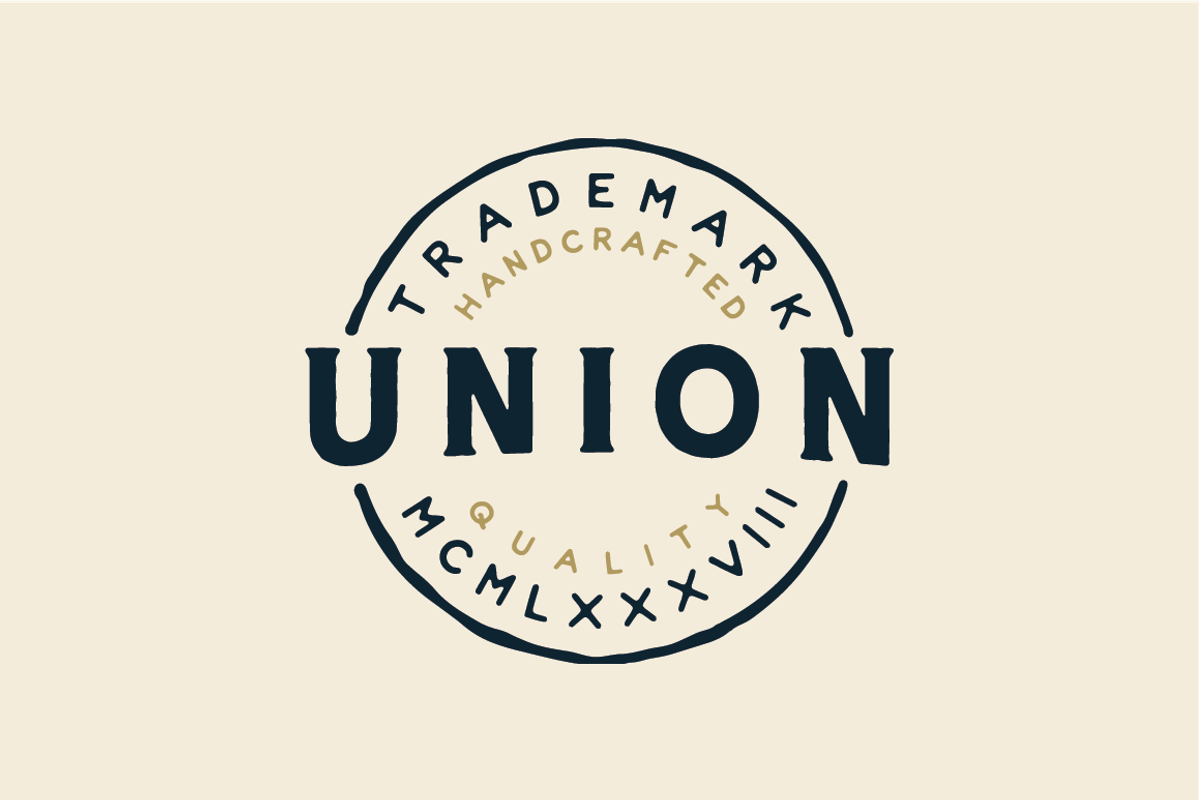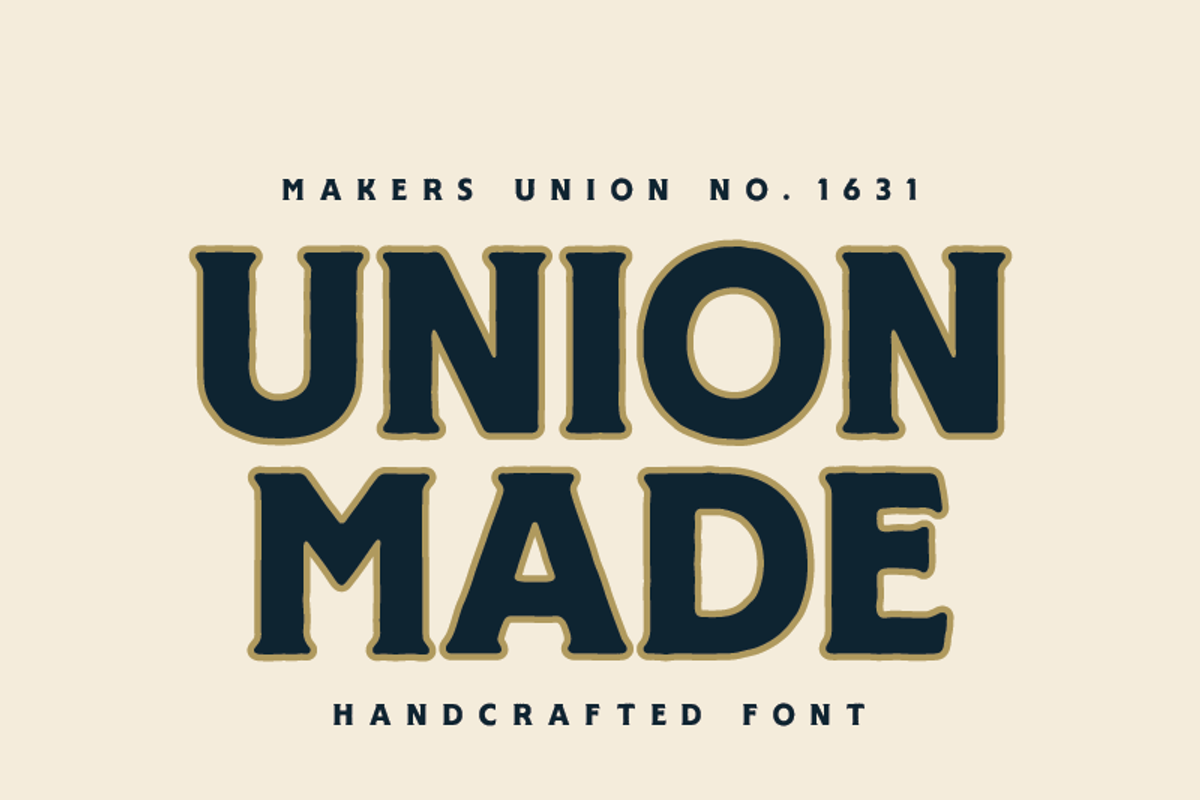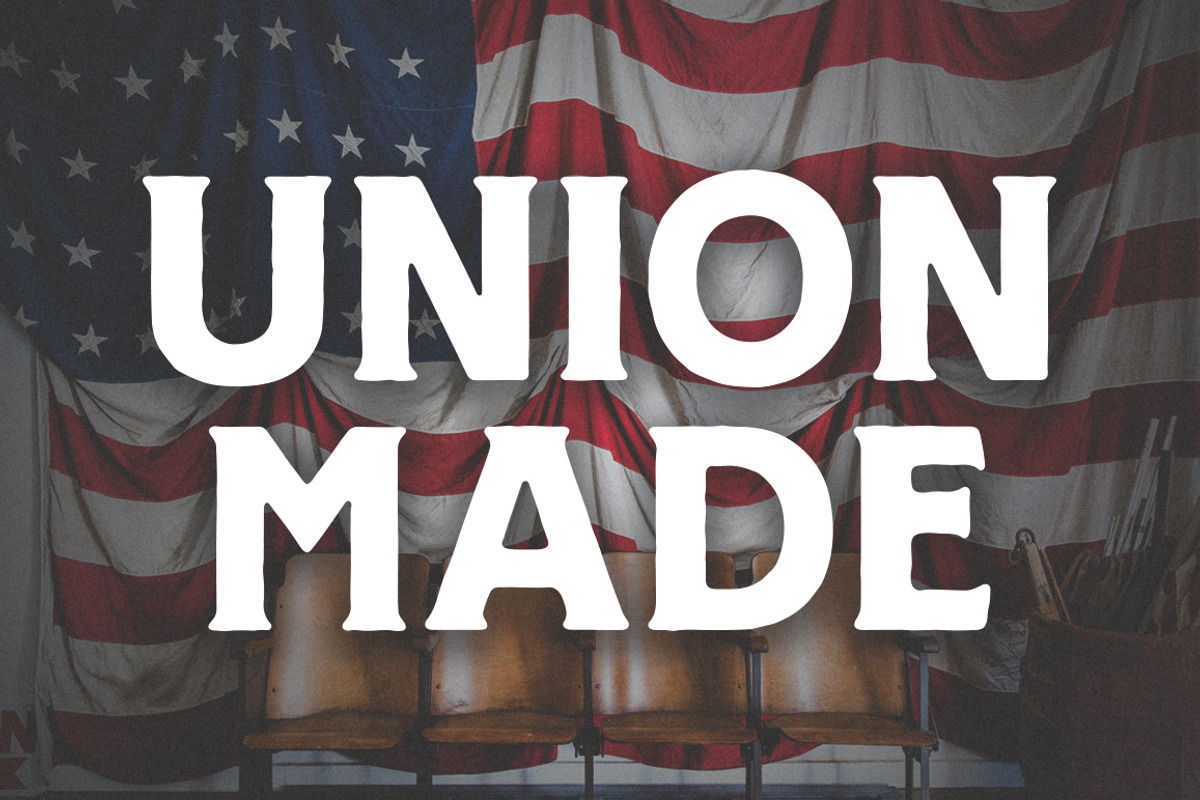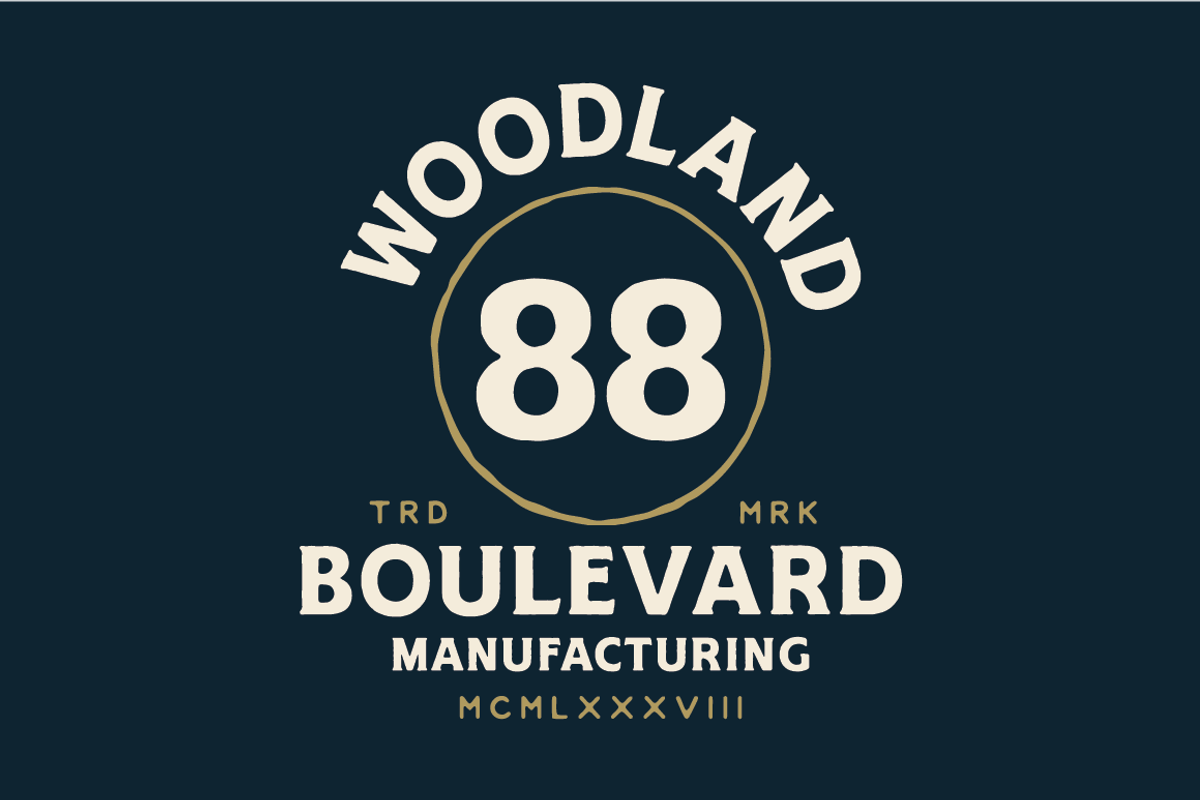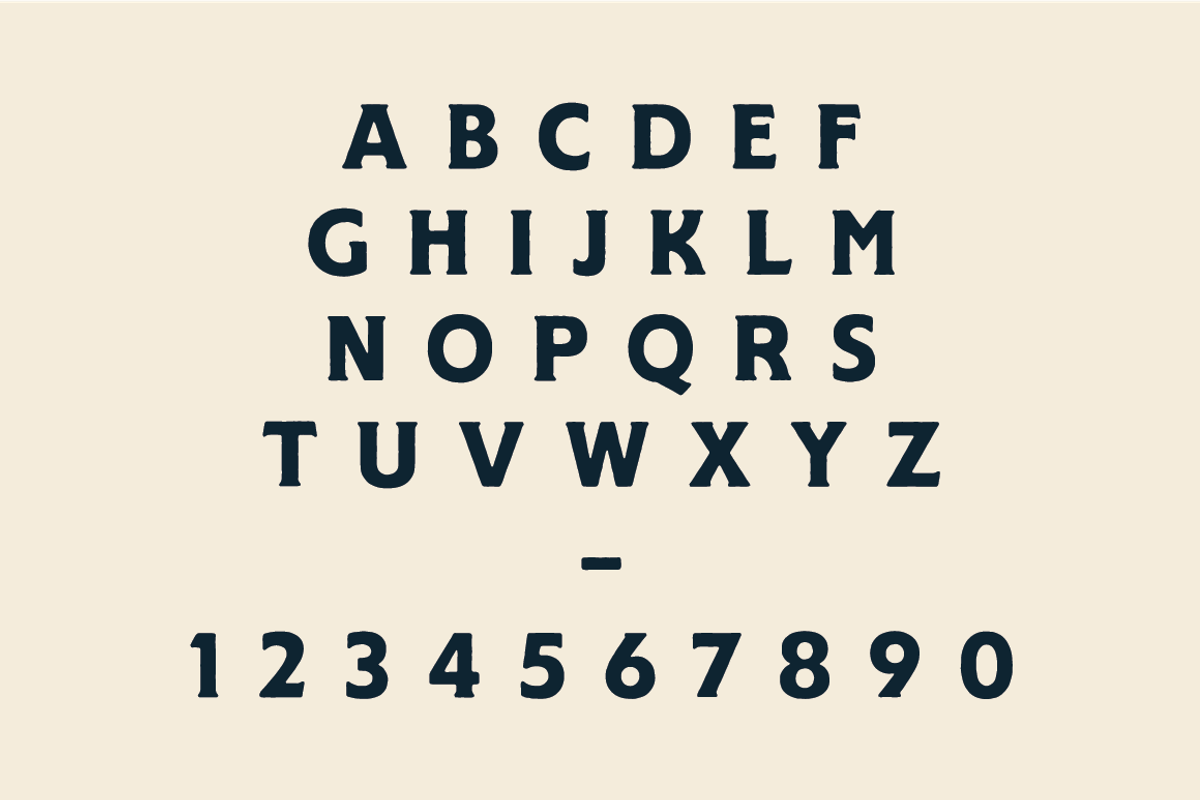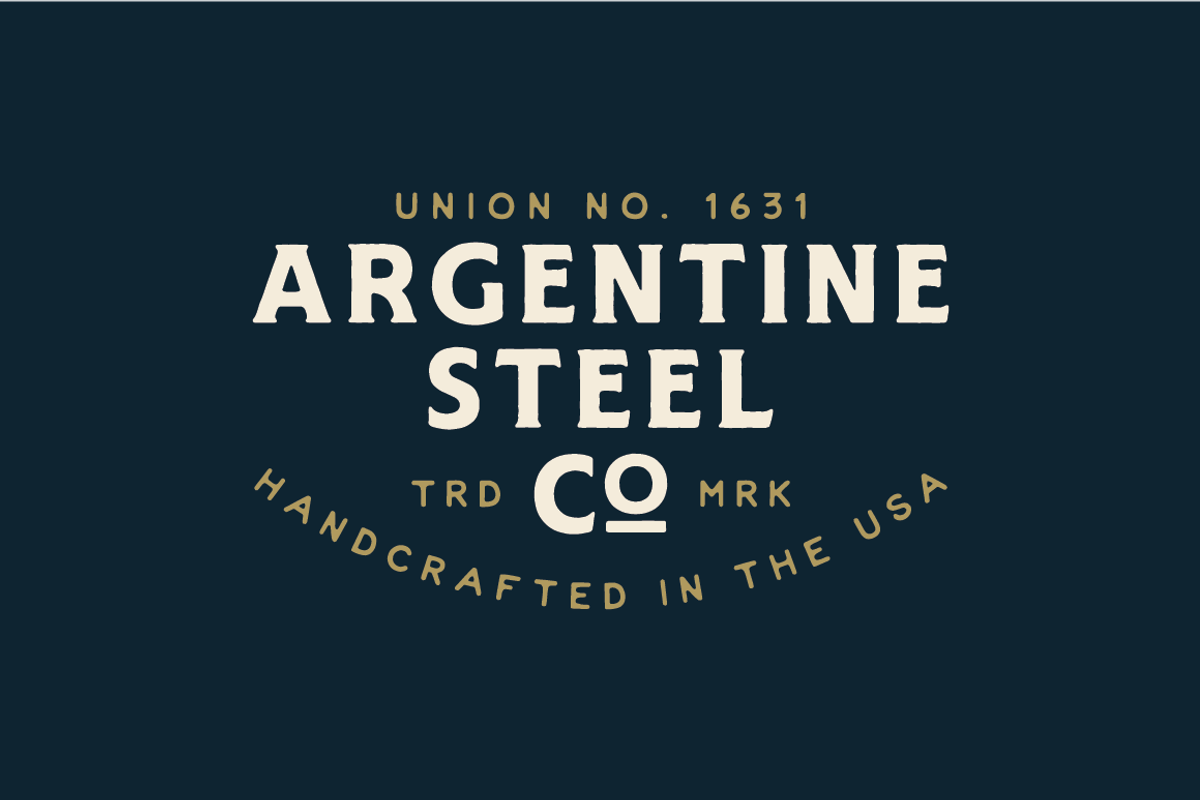
UNION MADE FONT
UNION MADE is a variation of a timeless font that has been used for many years. It offers that bit of that masculine, whiskey drinking, machine using, denim wearing, ass-kicking touch to any design or logo. The ultimate blue-collar font.
It features soft, worn edges for the perfect aged feel. An all uppercase font, with a few alternates and glyphs.